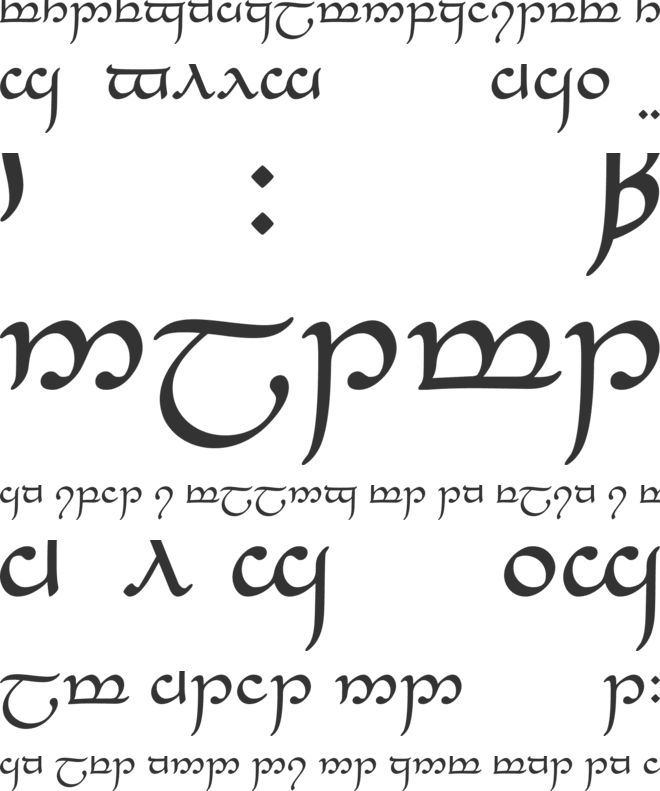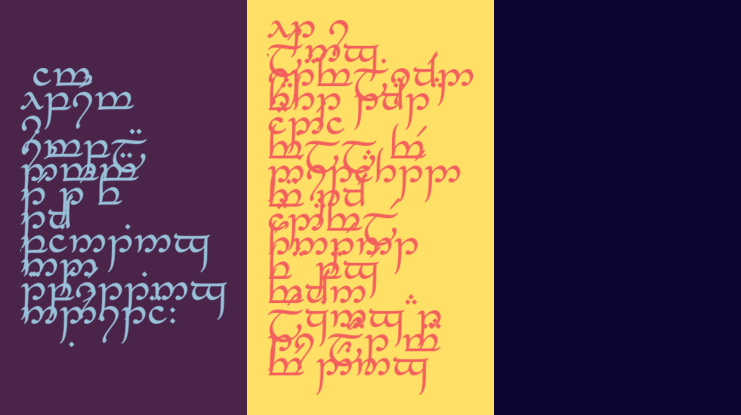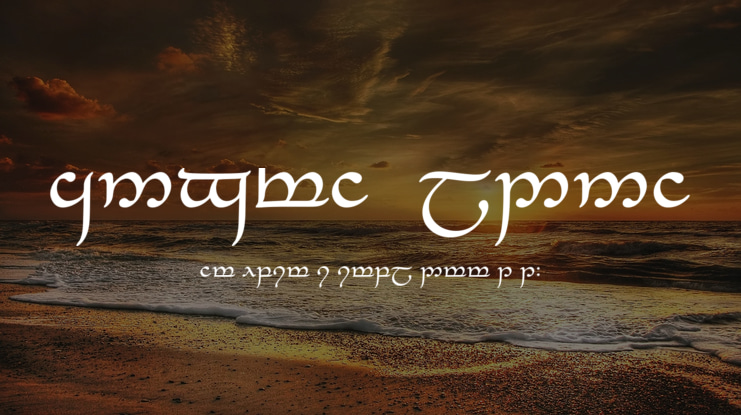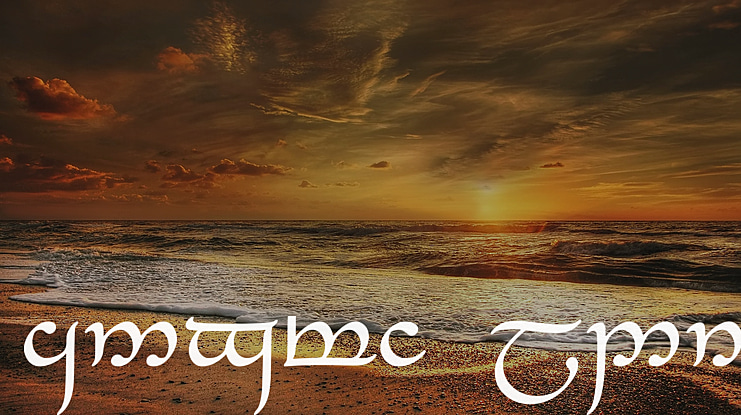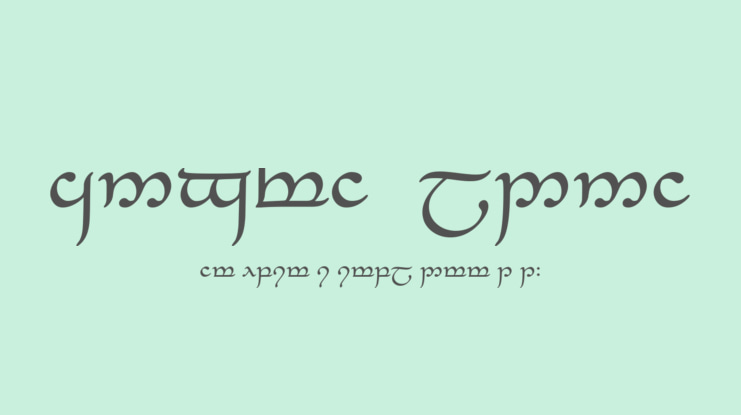
Tengwar_Eldanaro Font Family
Noah Kleinschmidt
I took the Character design from the Tengwar Annatar Font by Johan Winge, and put them into the right order to write with them correctly.
PLEASE KNOW: The Tengwar-Eldanaro are made to fit the English (and German) Language. I'm still working on a 100% correct Quenya-Version****. It is possible to write with it in elvish but I'd not recommend if you truely want that an elf of middle-earth would understand.
The font only contains what is necessary to write with it. There are NO special characters like @ or & etc. because the Tengwar font doesn't know such characters.